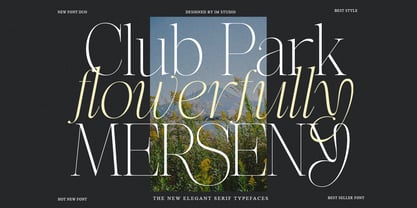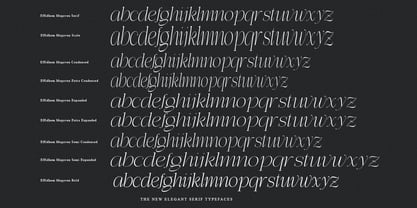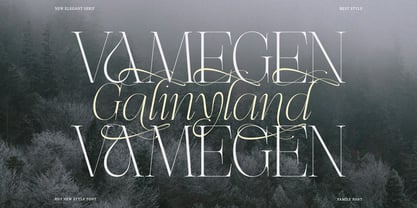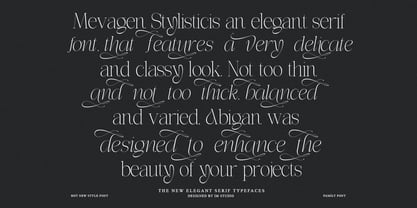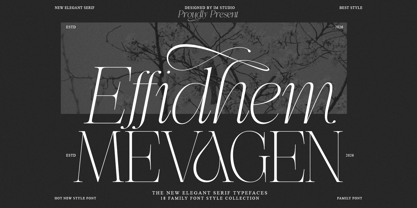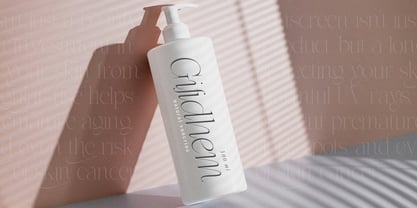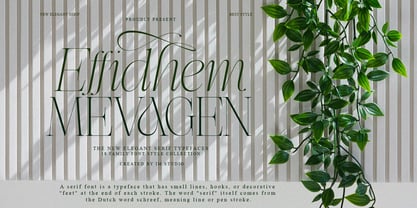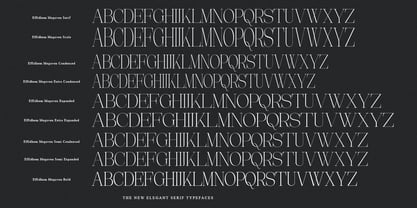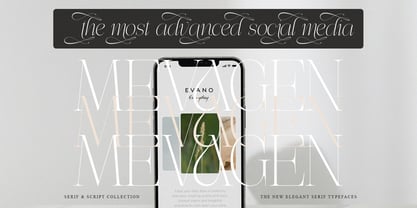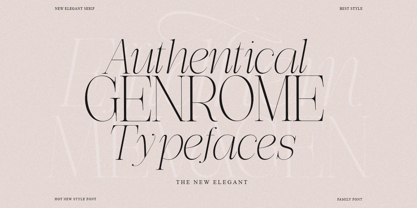
Effidhem Mevagen
The Effidhem Mevagen Font Family was designed by Ikhsan Maulana and published by IM Studio. Effidhem Mevagen contains 18 styles and family package options. More about this family
Effidhem Mevagen – Luxury Serif Font for Editorials
Effidhem Mevagen is a collection of high-end serif fonts designed to convey a sense of classic luxury with a sharp, modern touch. With its elegant silhouette and precise contrast, this font is a top choice for projects that prioritize premium aesthetics and professionalism.
From sleek editorial designs to luxury brand identities, Effidhem Mevagen provides a strong yet flexible character for a variety of visual needs.
Identity Branding: Fashion logos, beauty labels, and luxury hotel designs.
Editorial Design: Magazine layouts, book covers, and lifestyle articles.
Invitation Design: Add a touch of elegance to wedding invitations or formal events.
Digital Advertising: Clear, legible typography for high-end social media campaigns.